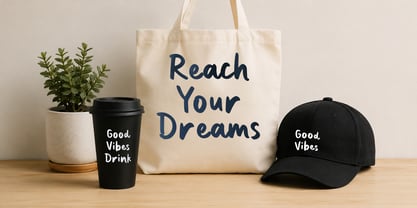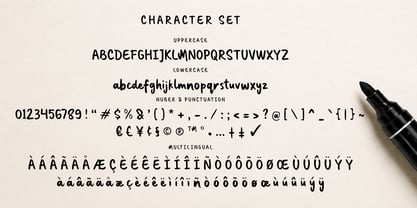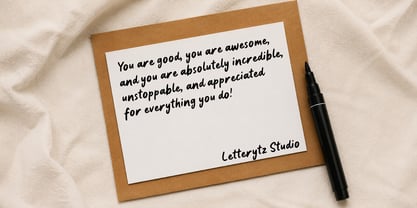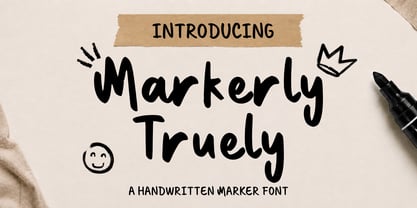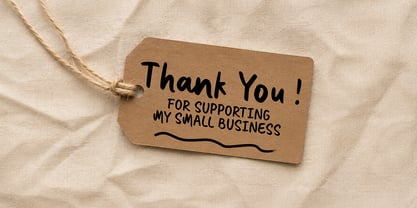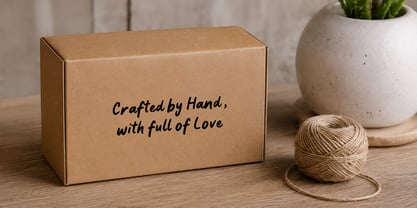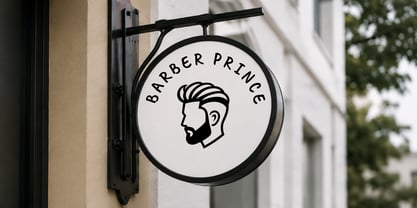
Markerly Truely
La famille de polices Markerly Truely a été conçue par Wahyu Eka Prasetya, Dian Angga Marytama et publiée par Letterytz CalliType. Markerly Truely contient 2 styles et options de package familial. En savoir plus sur cette famille
Markerly Truely is a playful handwritten marker font that captures the authentic feel of bold marker strokes with a natural, casual flow. Designed to bring warmth and personality to every project, this font is perfect for branding, logos, packaging, social media graphics, quotes, posters, invitations, merchandise, children's designs, and creative craft projects. Its organic brush-inspired shapes deliver a friendly and modern appearance while maintaining excellent readability in both print and digital applications.
Whether you're creating eye-catching headlines or adding a handmade touch to your designs, Markerly Truely provides the perfect balance of charm, simplicity, and versatility.